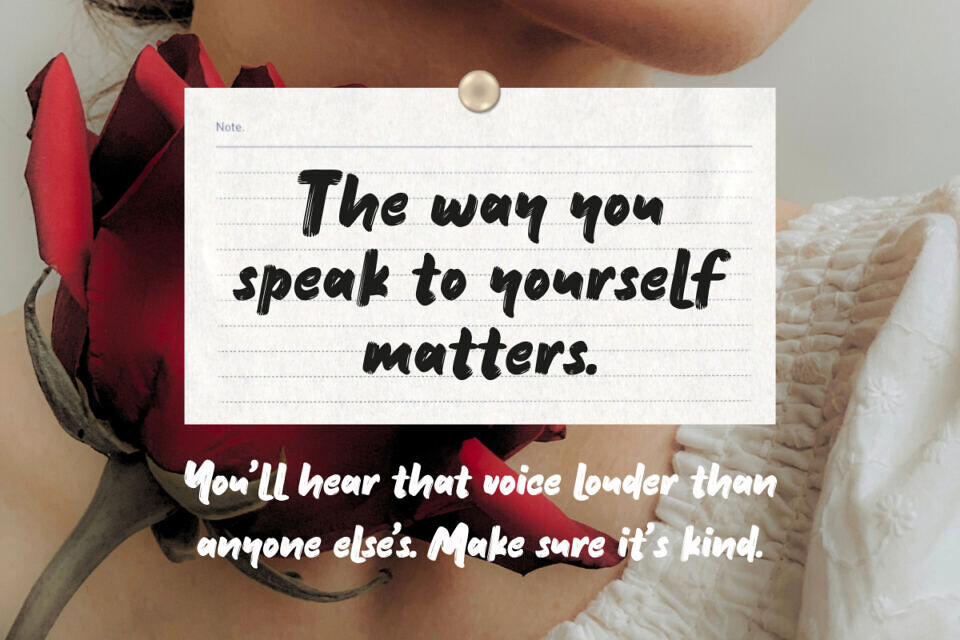
Bitterlove Story is a vibrant, handwritten font that conveys intense emotion and romance. Its imperfect, organic design adds a personal touch, making it perfect for projects that require strong character and feeling.
With its raw, brush-stroke texture, this font is ideal for branding, album covers, posters, and more, bringing a sense of authenticity and soul to any design. It’s great for creating moody, romantic, or edgy visuals that tell a story.